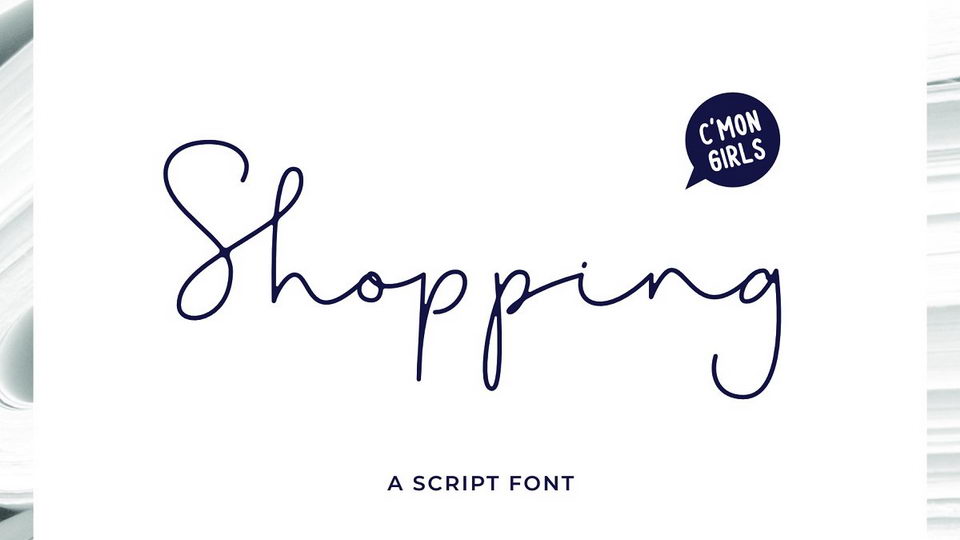
Download Shopping Script, a fashionable and super-chilled new handwriting font. Shopping Script was created to look as close to a natural handwritten script as possible by including over 30 ligatures, and a full set of lowercase alternates.
Designer: Andika Fez